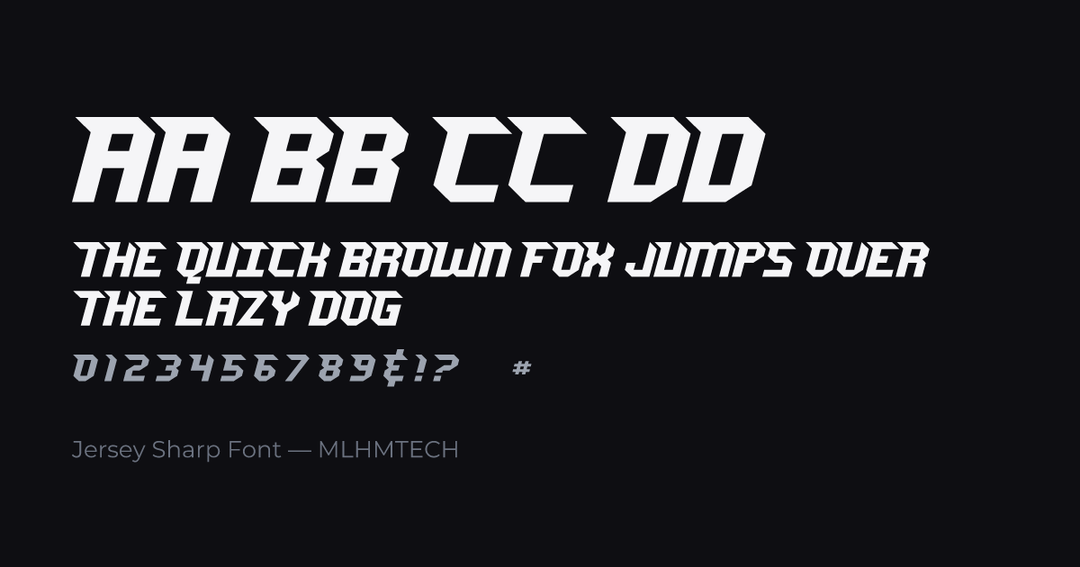
Jersey Sharp Font
Jersey Sharp is a bold, condensed display font with a sporty edge, ideal for impactful titles and branding.
Jersey Sharp is a striking display typeface that combines a condensed structure with sharp, angular cuts, giving it a dynamic and athletic feel. Its bold weight ensures high visibility, making it perfect for headlines, posters, sports graphics, and video titles that need to grab attention.